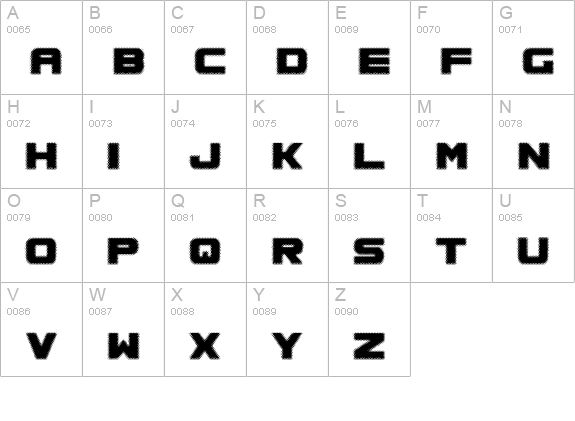
Spac3 halftone Font Details
Spac3 Halftone font is a captivating and unique typeface that effortlessly blends futuristic aesthetics with a touch of retro charm. Its intricate design features halftone patterns that add a captivating texture and depth to each letterform, creating a stunning visual impact. This font is not only visually appealing but also highly versatile, making it suitable for a wide range of design projects. Whether you're working on a poster, logo, website, or any other creative endeavor, Spac3 Halftone font will undoubtedly make a bold statement. One of the most enticing aspects of this font is that it is available for free download at FontsMarket.com. This means that you can easily access and utilize this stunning typeface without any cost, making it an ideal choice for designers on a budget or those simply looking to add a unique touch to their projects. Spac3 Halftone font offers a wide range of characters, including uppercase letters, lowercase letters, numbers, and various symbols, providing you with endless possibilities for creative expression. Its clean lines and carefully crafted details ensure that each letter is visually balanced and harmonious, resulting in a visually stunning and highly legible font. Whether you're a professional designer, a student, or anyone with a passion for typography, Spac3 Halftone font is a must-have addition to your font collection. Its free availability at FontsMarket.com allows you to easily explore and experiment with this captivating typeface, unleashing your creativity and bringing your design visions to life. Download Spac3 Halftone font today and embark on a typographic journey that combines futuristic aesthetics with a hint of nostalgia. Let its halftone patterns mesmerize your audience and elevate your designs to a whole new level.